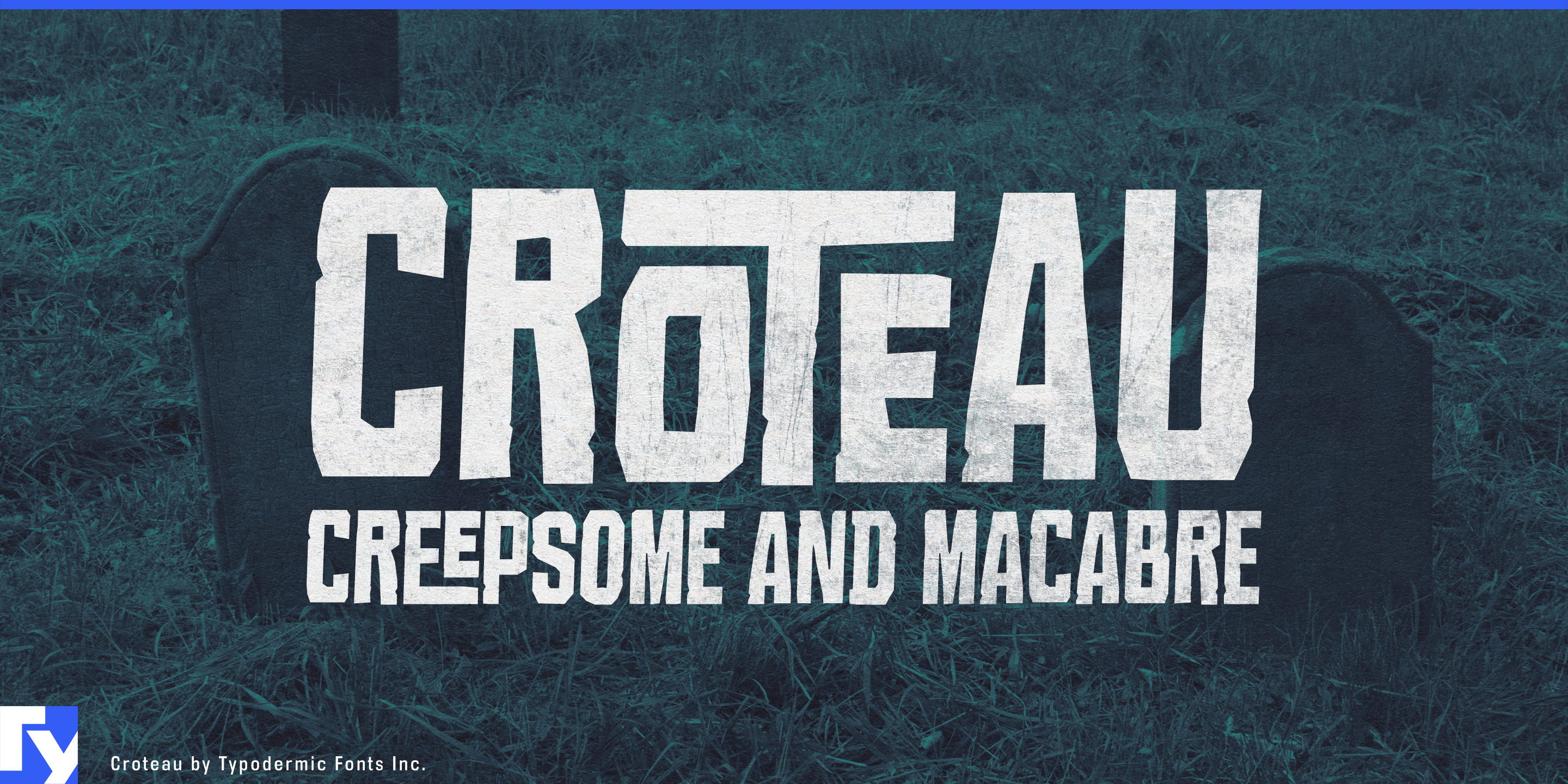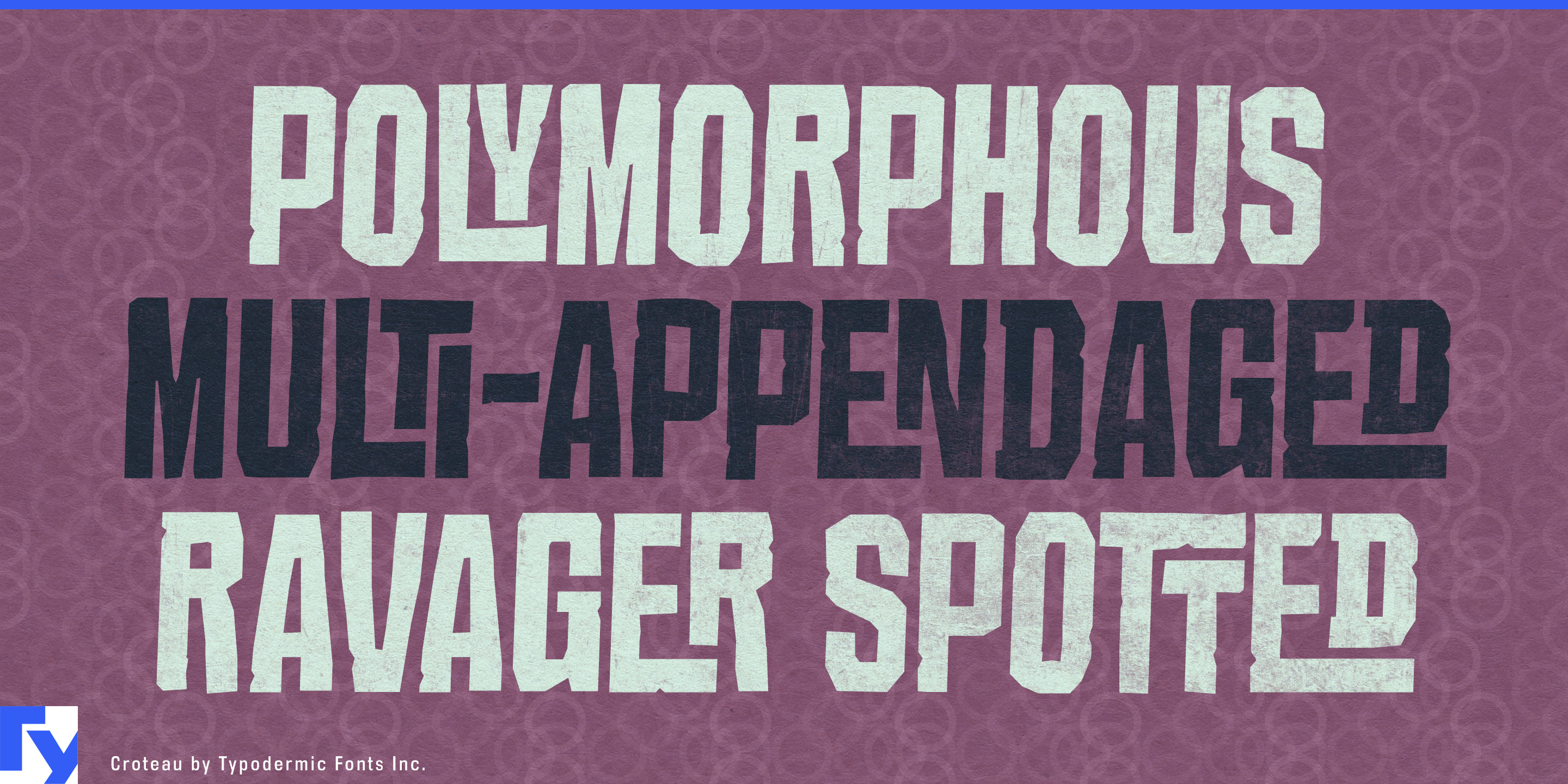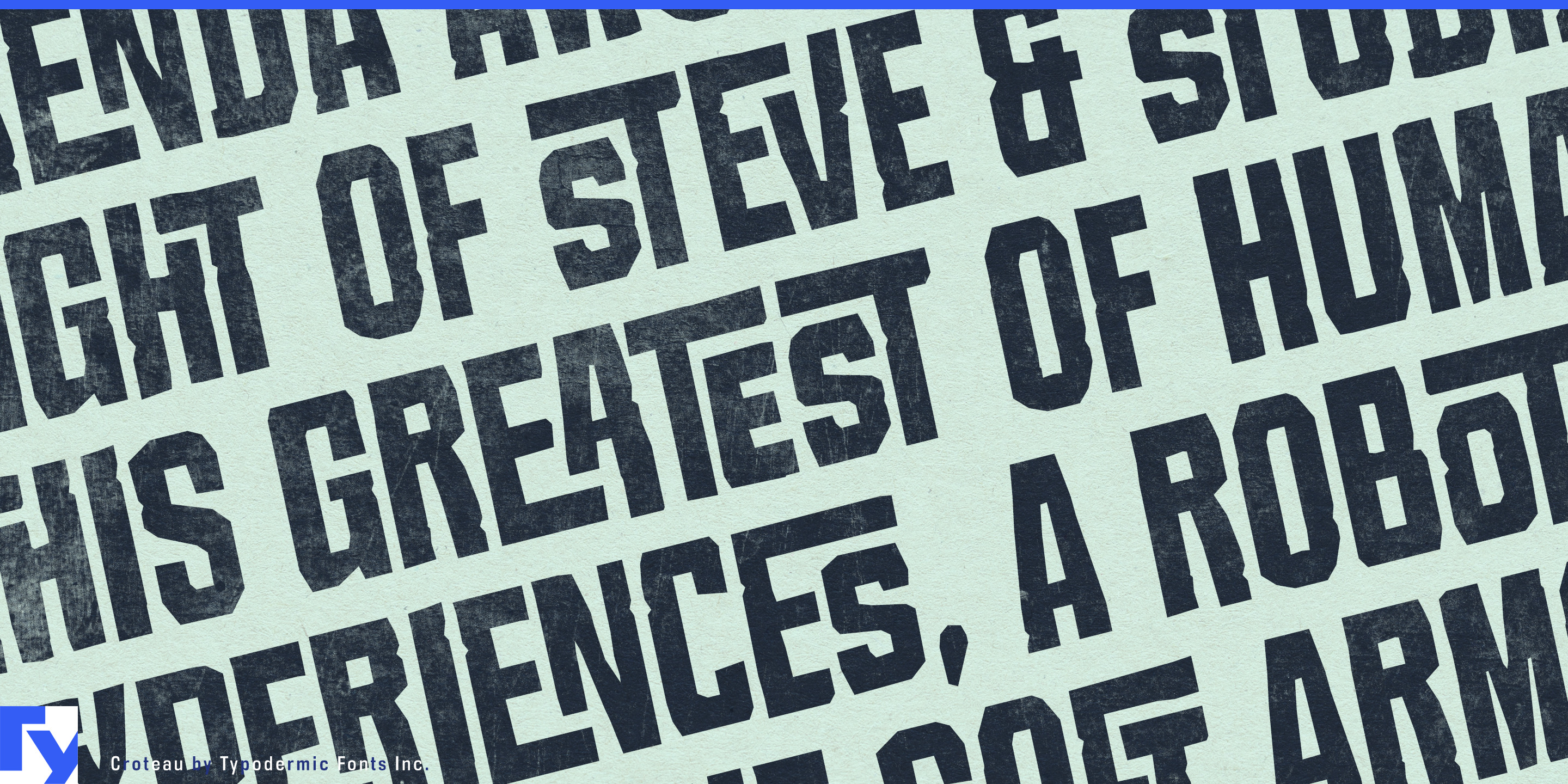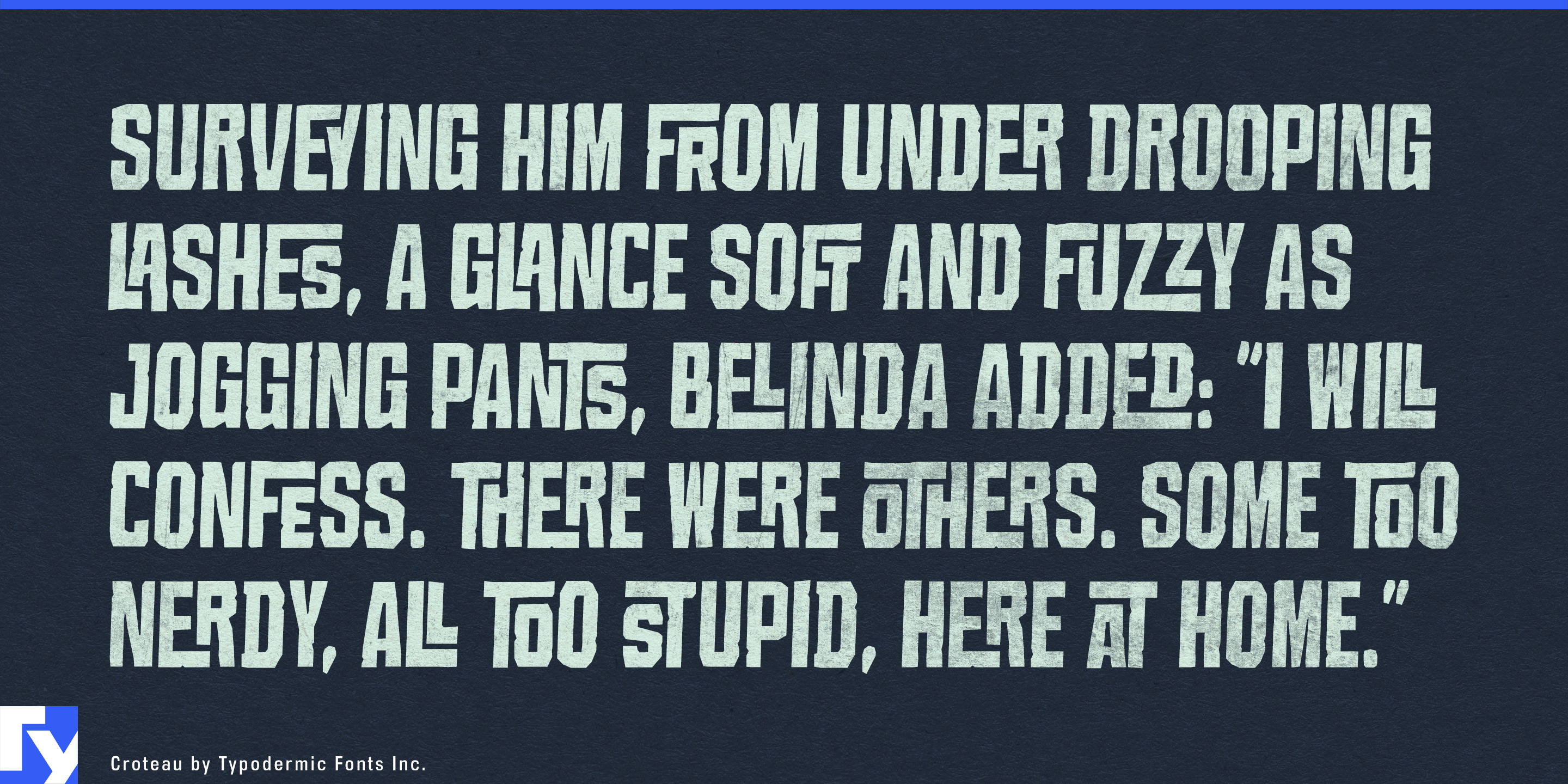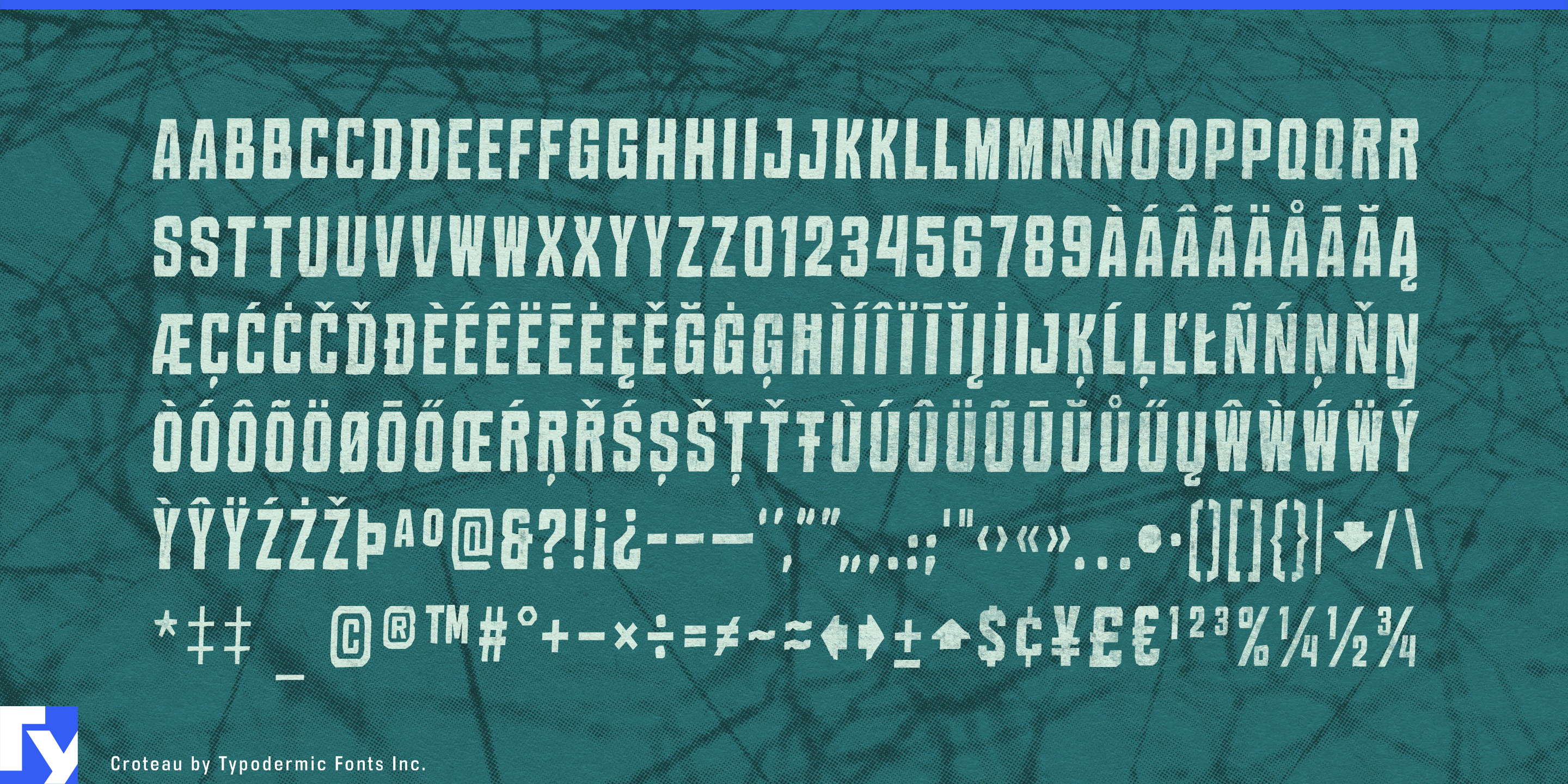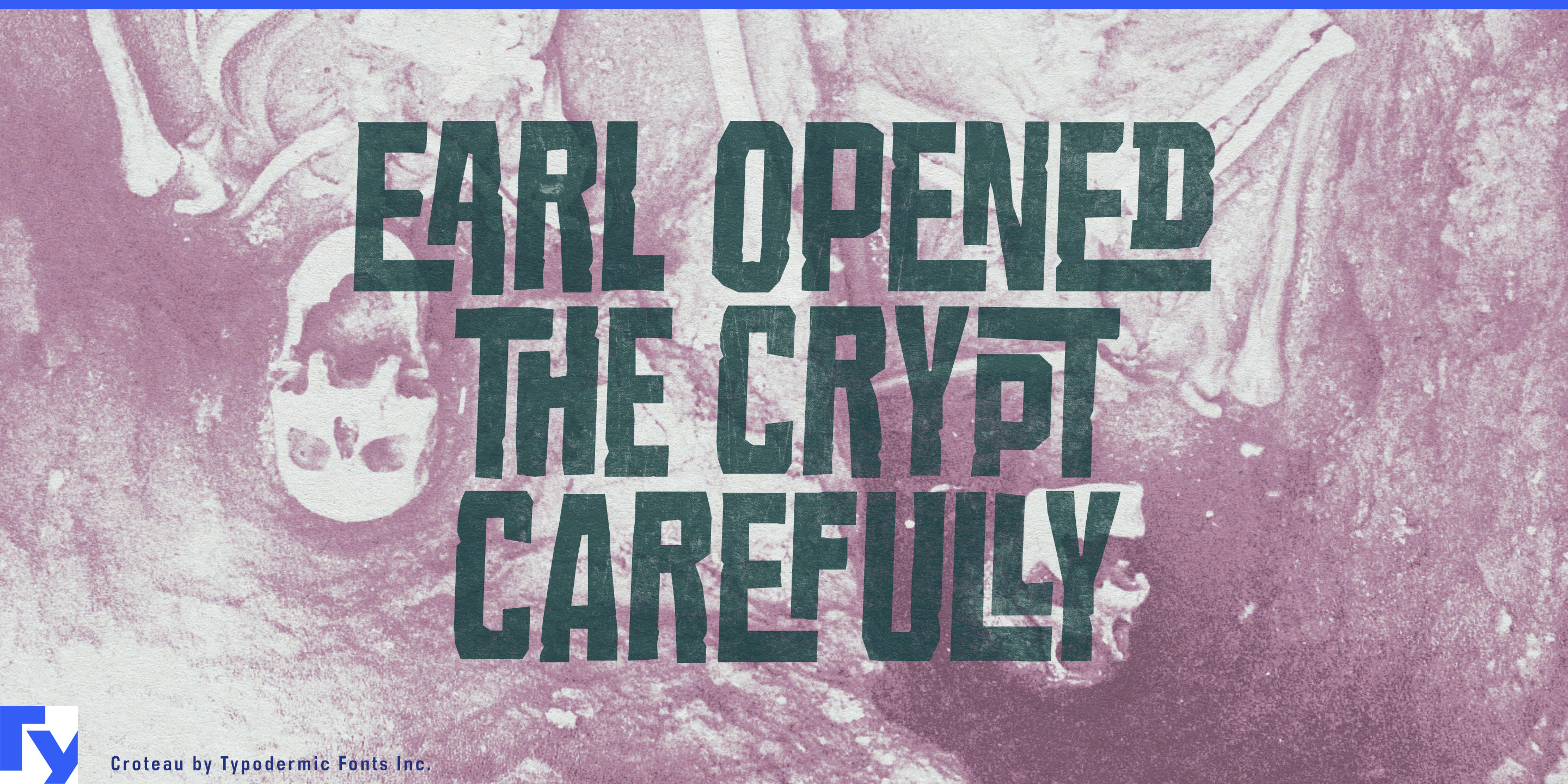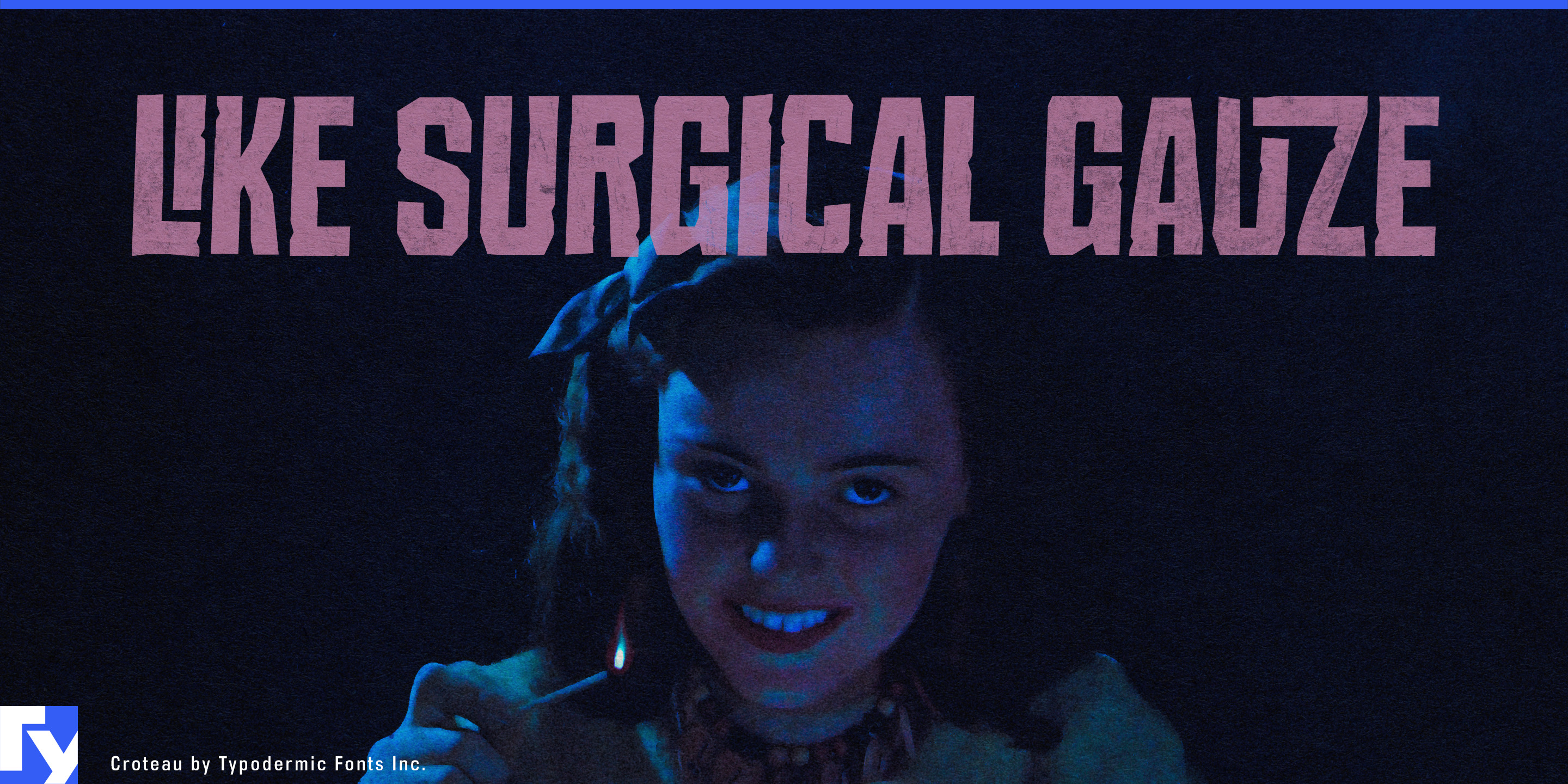
Croteau
A horror property rarely needs only one scary title. A major attraction, anthology series, or game may need dozens of house names, scare zones, episode titles, creatures, chapter cards, merchandise phrases, and seasonal campaigns, all of which have to feel individually designed while still belonging to one system. Building custom interlocking lettering for every name is slow; simply resetting the same display face over and over can make the whole program look templated. Croteau solves that problem with condensed, rough-cut capitals and roughly 250 automatic interlocking combinations that let neighboring letters collide, overlap, and lock together in changing ways.
That makes Croteau particularly useful for immersive horror attractions. Haunted houses, scare zones, walkthrough mazes, live shows, themed bars, and seasonal takeovers all generate their own names while remaining part of a larger event. Croteau can turn those short names into dense title lockups for entrance signs, queue graphics, map headers, teaser campaigns, stage screens, and attraction merchandise. Different letter combinations produce different silhouettes, helping each title feel related without looking as though one logo template has simply been reused.
Permanent horror destinations create an even stronger need for that flexibility. A year-round venue may contain several attractions, bars, rotating shows, temporary takeovers, and continuously changing seasonal programs. Croteau can provide the dramatic naming layer while a cleaner companion family handles tickets, safety information, menus, schedules, and wayfinding.
Horror anthologies and franchise graphics face much the same problem on screen. Each episode, segment, short film, or installment needs a title of its own, but the collection still needs a recognizable visual language. Croteau can handle title cards, teaser graphics, trailer end frames, streaming hero art, collector-edition packaging, and chapter openers.
Games built around multiple named locations, creatures, chapters, or events can use Croteau in a similarly focused way. Boss names, chapter cards, map locations, seasonal events, challenge modes, and downloadable episodes can each receive a distinctive lockup while a practical interface face handles menus and instructions.
Croteau works best when one horror property needs many dramatic names rather than one permanent logo. Its automatic interlocking combinations give each short title a different pattern of collisions and overlaps while keeping the underlying visual language consistent.